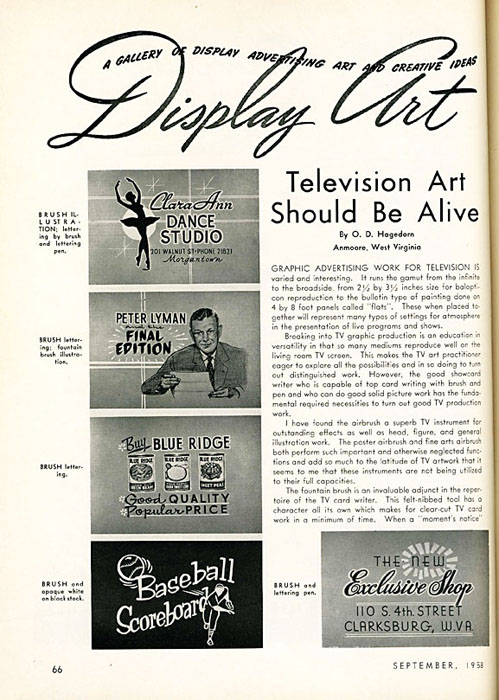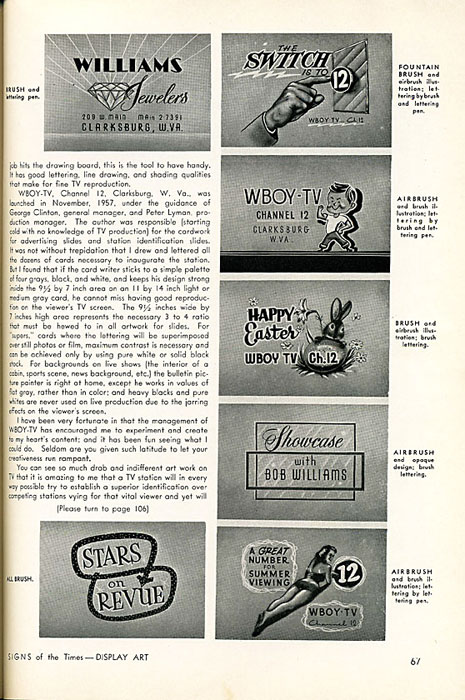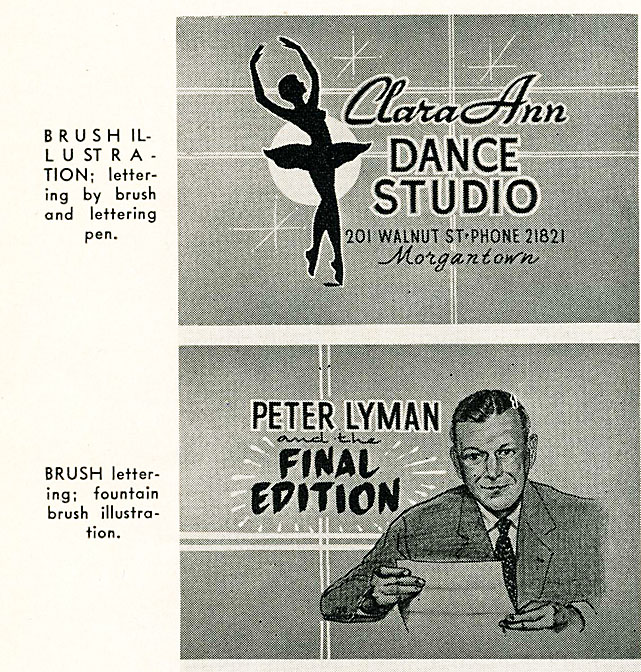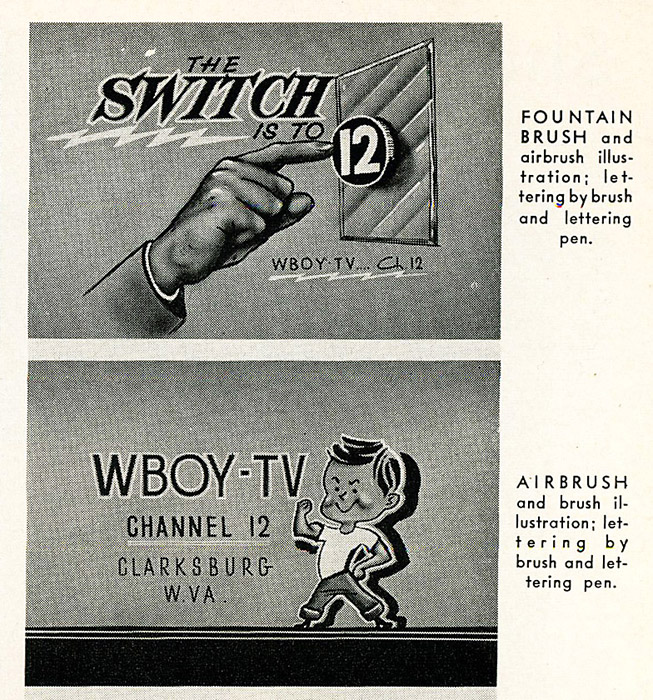
When I first started in the sign business....(actually well before) my deepest desire was to do TV sho-cards in the town I lived in at the time, Peterborough Ontario. I recall that during commercials there was usually just a voice over and the camera focused on the still of a sho-card. These would have been done by a terrific card writer in town by name of Ivan Elicott. Just great imagination and creative approach was needed for that work. Of course this was all done in black and white and in fact the card we used had 2 shades of grey for this very purpose. Even until a few years ago they still manufactured these colours although I have no idea what has happened since the art of sho-card writing disappeared. While going through the Signs of the Times mentioned in a previous post I stumbled upon something from that era. Hope you enjoy